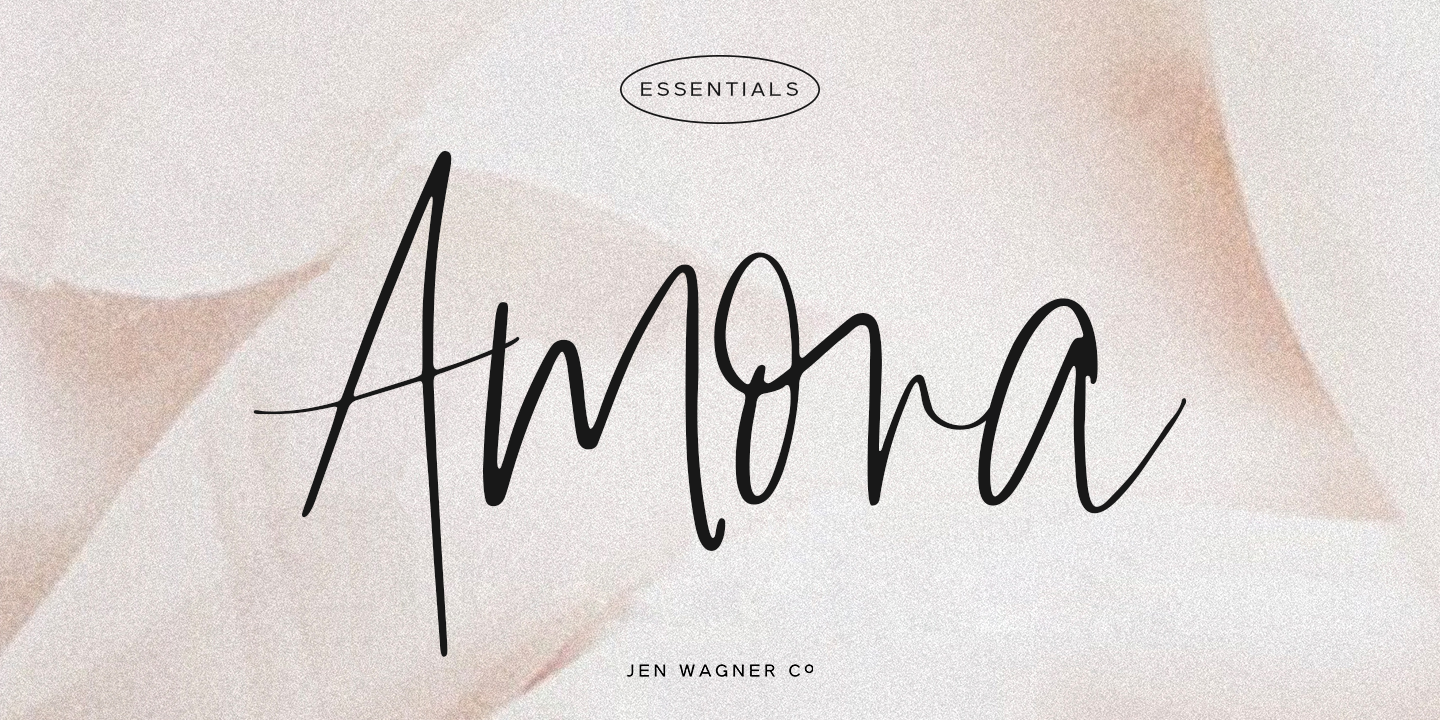
Amora Font Free Download is a beautifully elegant script typeface designed to bring a touch of romance and sophistication to your creative projects. With its flowing curves, stylish swashes, and graceful letterforms, Amora is ideal for wedding invitations, logos, branding, social media graphics, and other designs that call for a personal, handwritten feel. It evokes charm and femininity while maintaining readability and class.
Whether you’re designing for a luxury brand, a boutique shop, or a heartfelt event, Amora Font Free Download offers just the right amount of flair and delicacy. The font’s calligraphic nature makes it especially appealing for feminine designs and upscale aesthetics, allowing you to effortlessly create a refined, emotional impact.